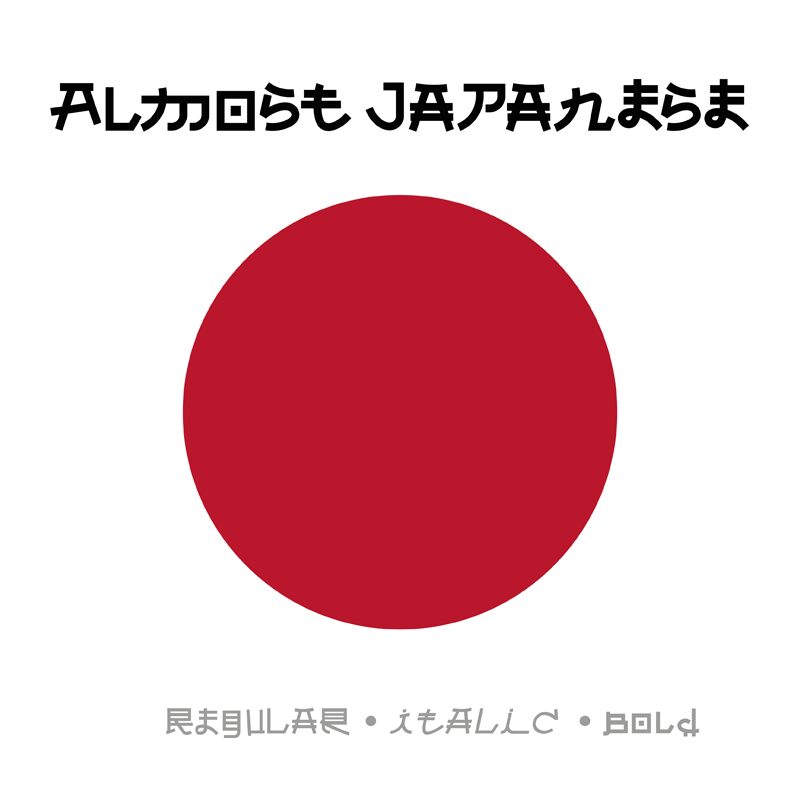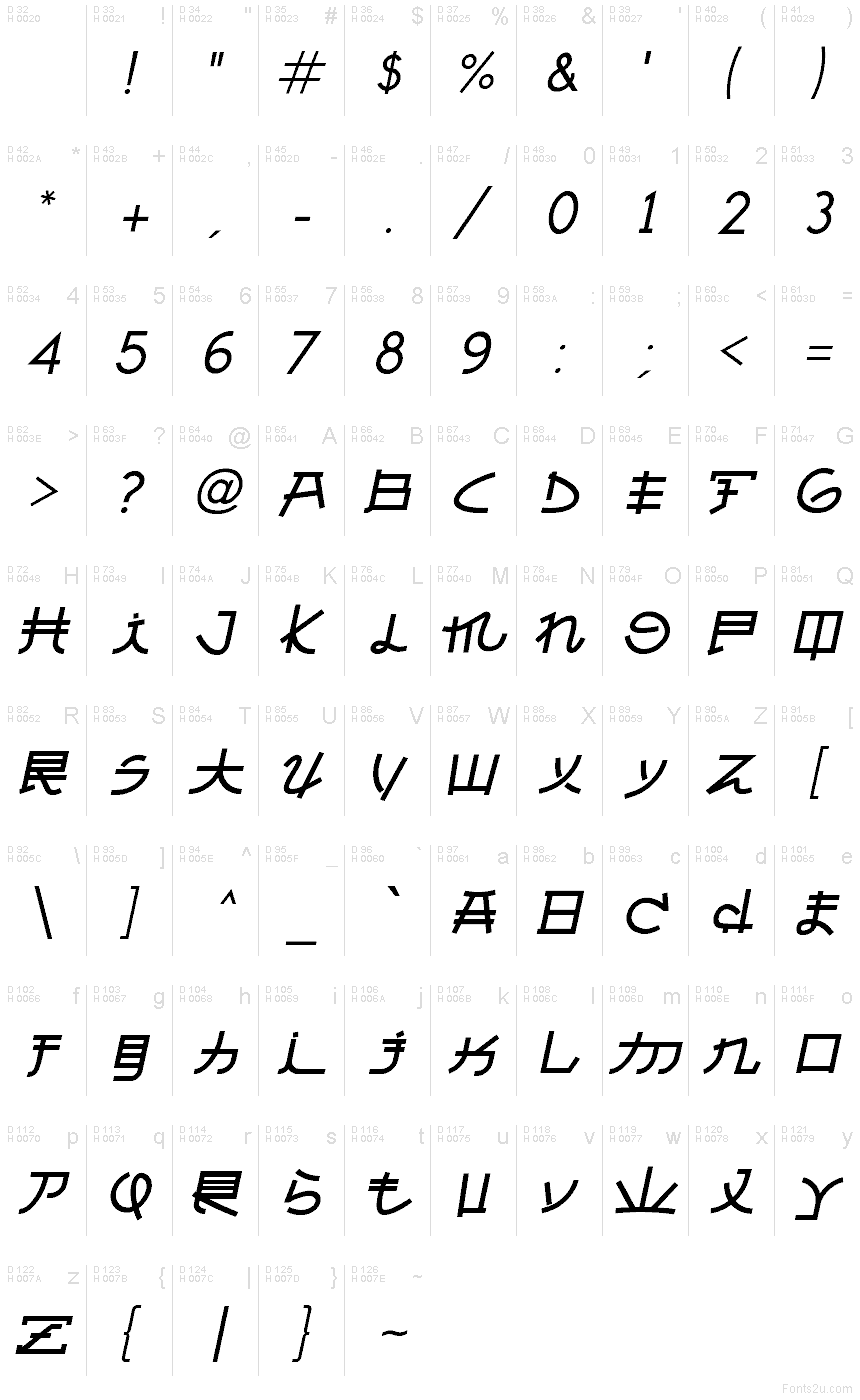
Almost Japanese Italic
Almost Japanese Italic font by Galdino Otten Fonts is a free faux-foreign Japanese display font. Part of the Almost Japanese family, it leans forward with brisk, brush-like strokes and angular cuts that mimic the snap of a quick marker line. The rhythm is tight and lively, giving headlines that instant “neon-sign” energy without getting messy, while the italic slant adds motion you can feel.
Using Almost Japanese Italic, you can brand ramen pop‑ups, theme-night posters, retro arcade titles, YouTube thumbnails, stickers, festival banners, and bold packaging. This free font shines when it’s big and high-contrast; add a touch of letter‑spacing for air. For body copy, pair it with a calm sans like a neutral grotesk to keep the spotlight on the headline.